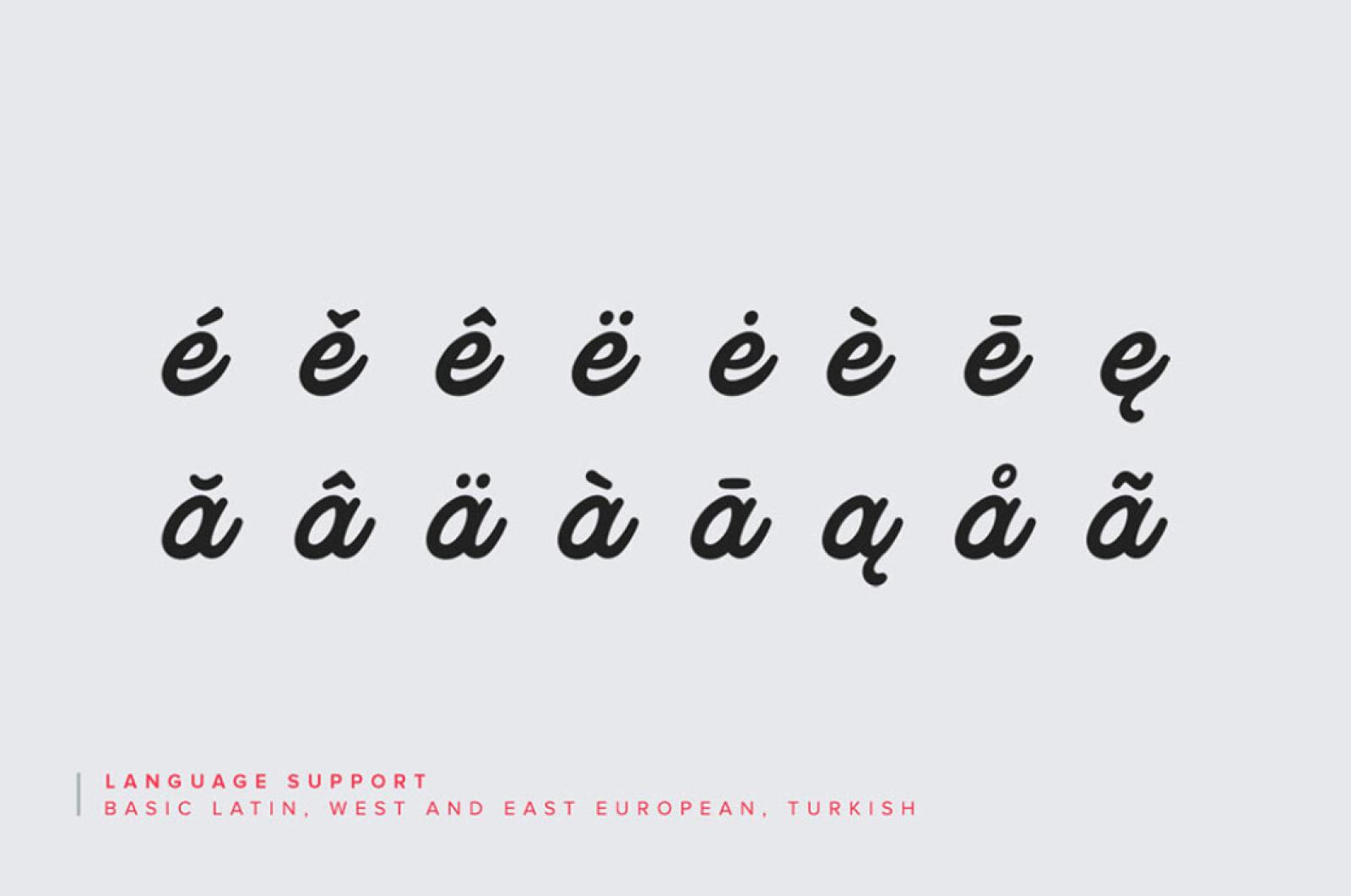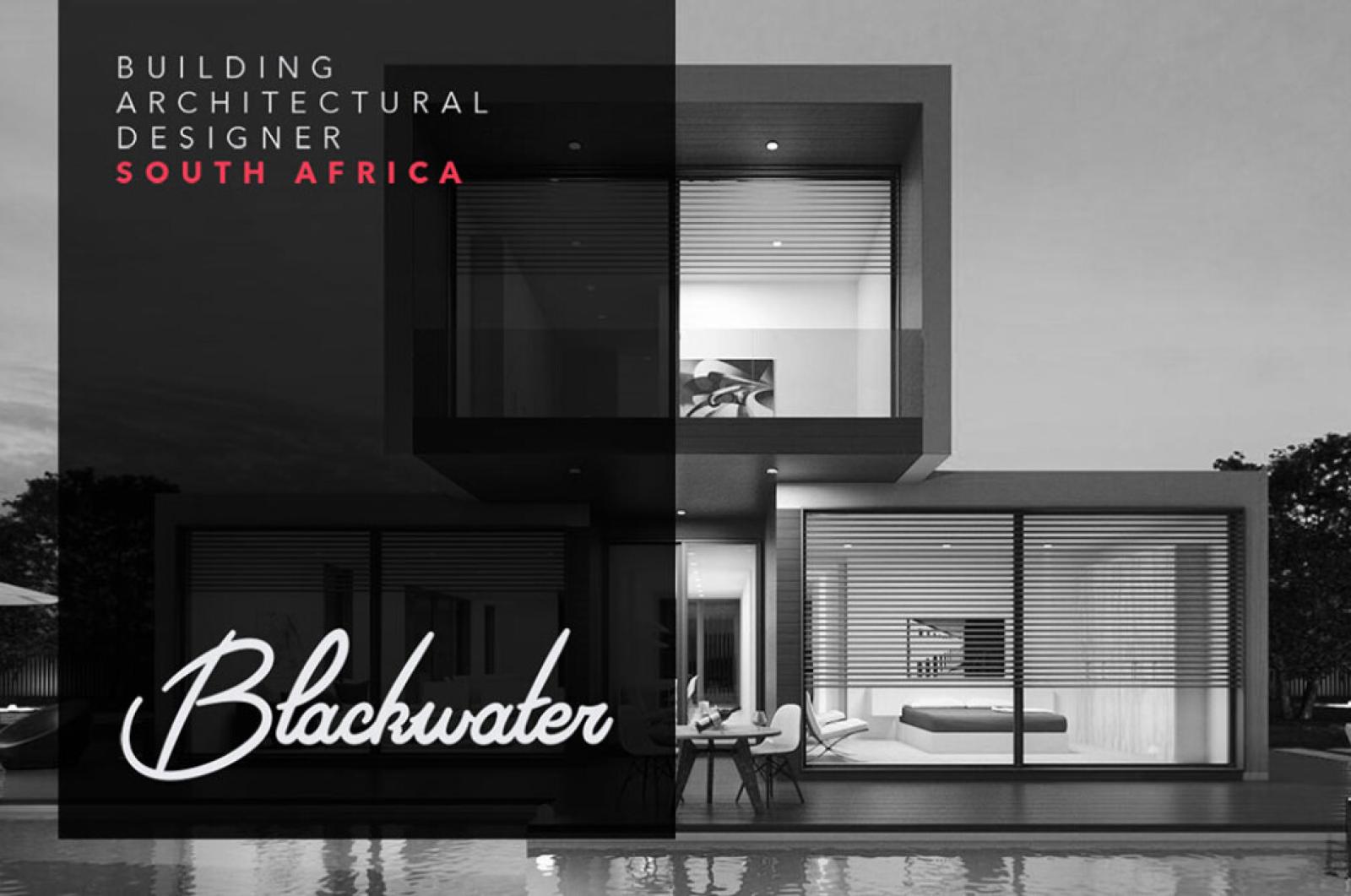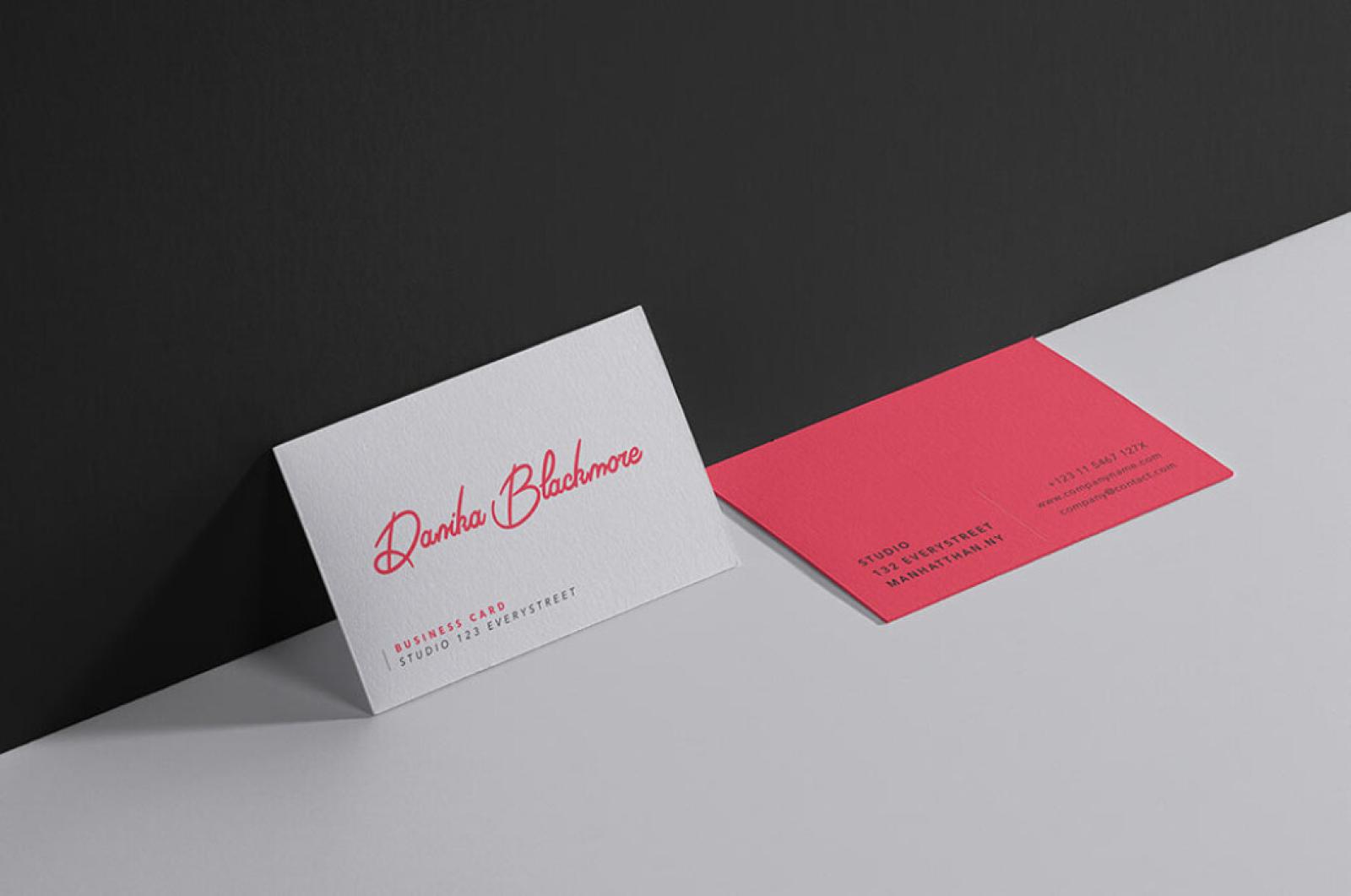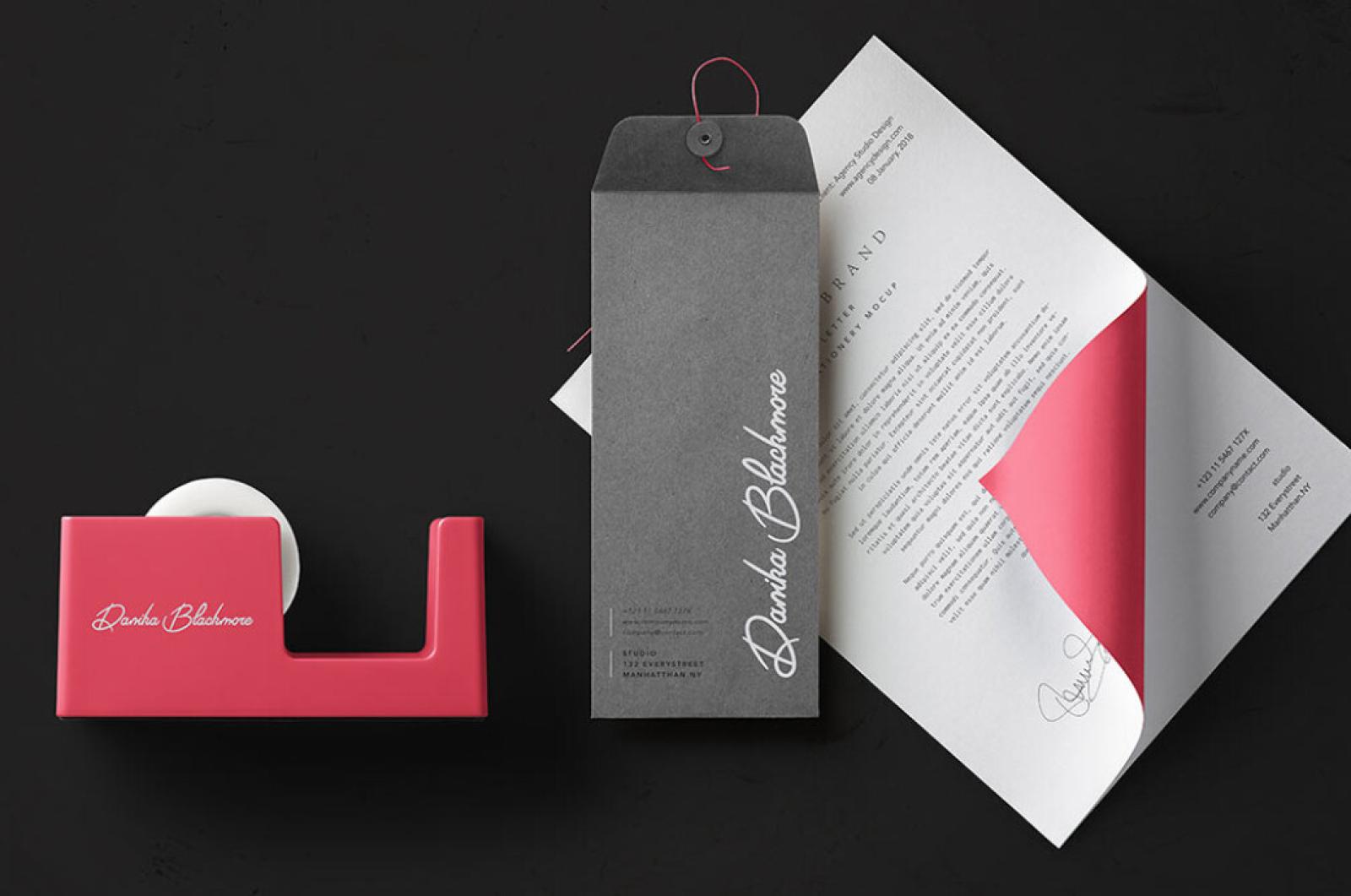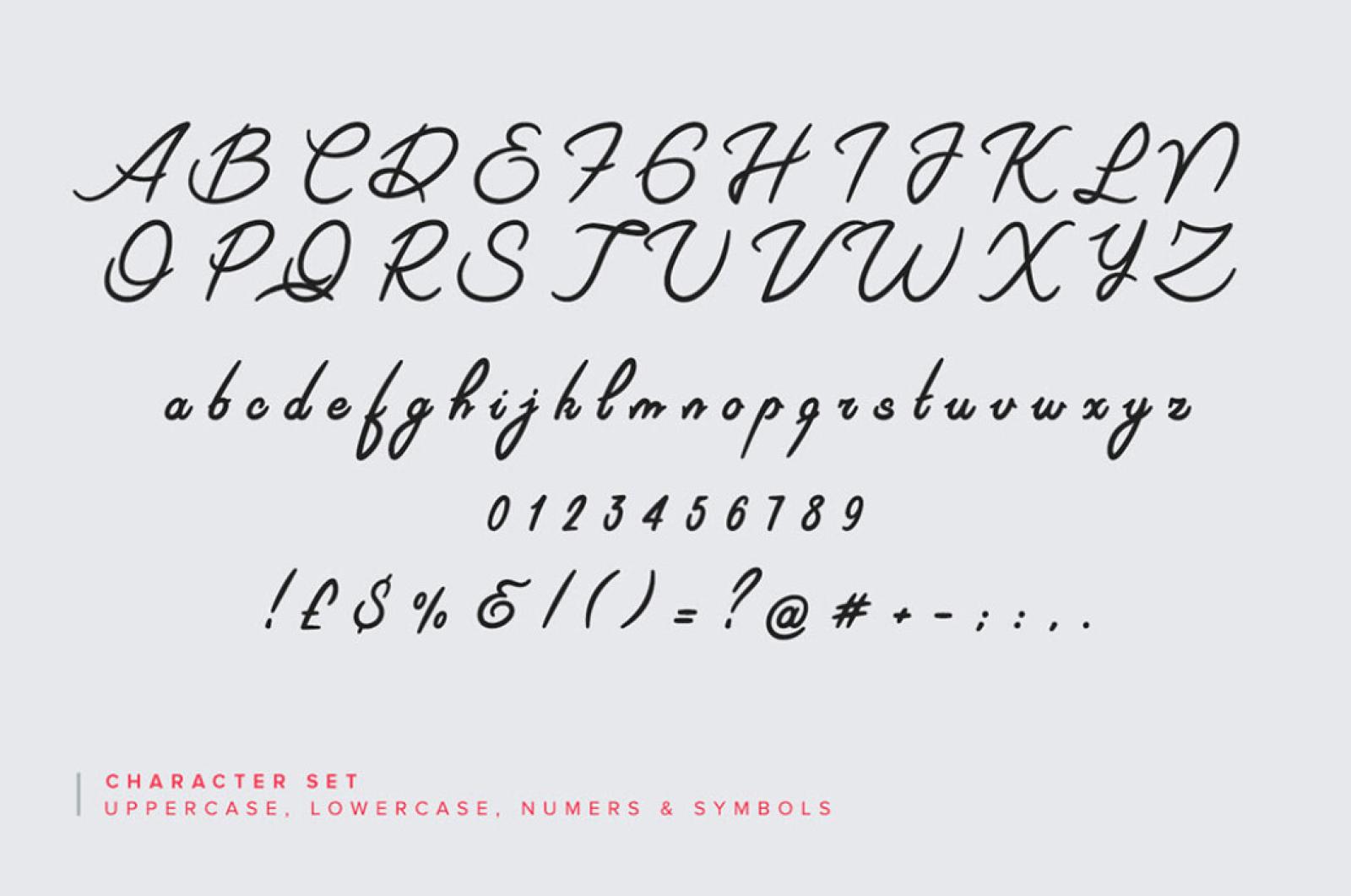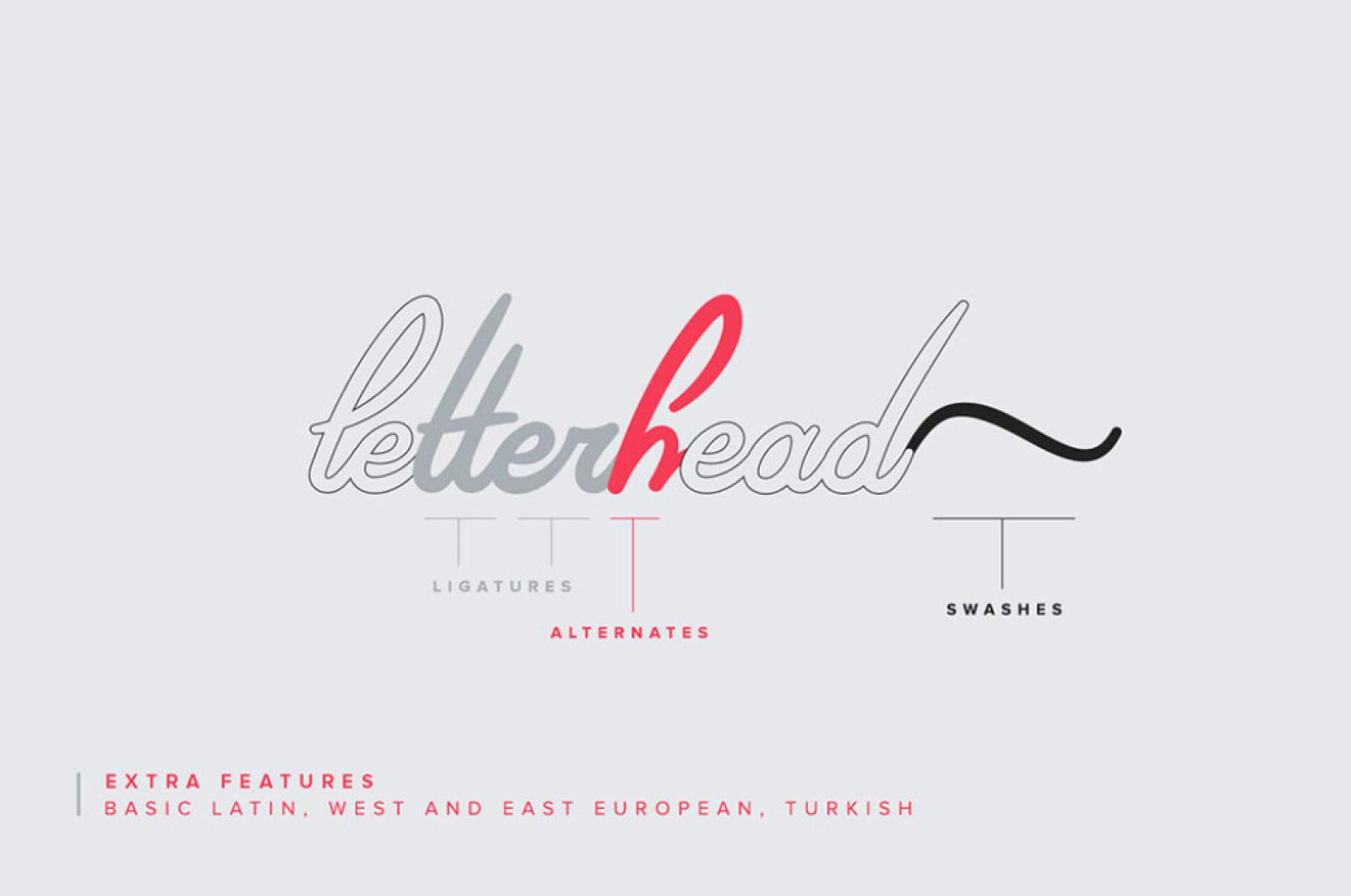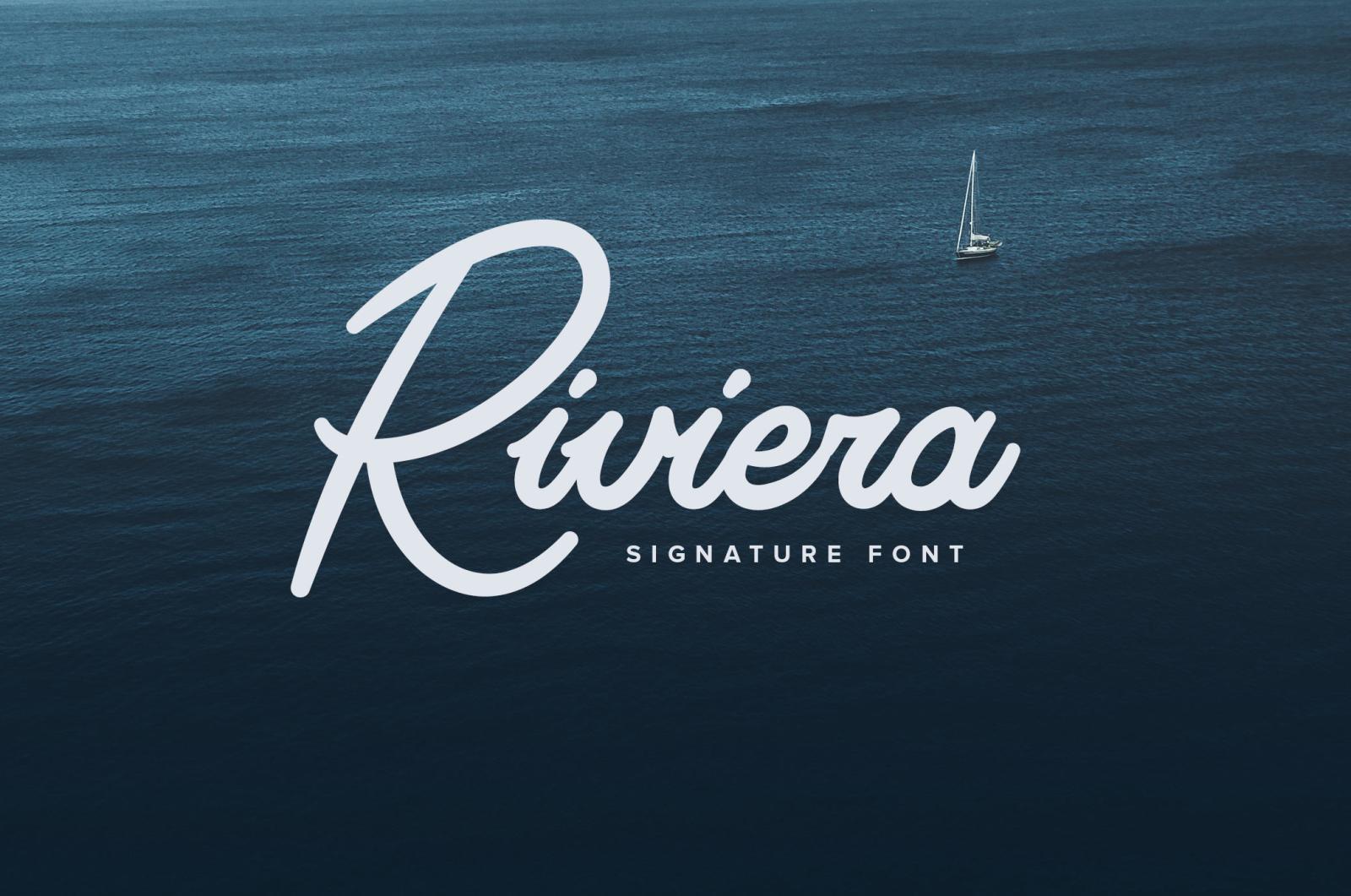
Riviera Signature Font
Fancy doesn't mean arrogant, on the contrary, it's something elegant, gentle and sophisticated. And this script font was carried out with this approach so now you can observe a calligraphy wonder.
Every curve and stroke of this handwritten typeface represents a significant turn of the whole artistic flow, reflected through Riviera. More than 400 characters, multi-language support, ligatures, and swashes won't leave you indifferent. Any design project, social media post, advertisement, and photo collage will become even better with Riviera, that's for sure.